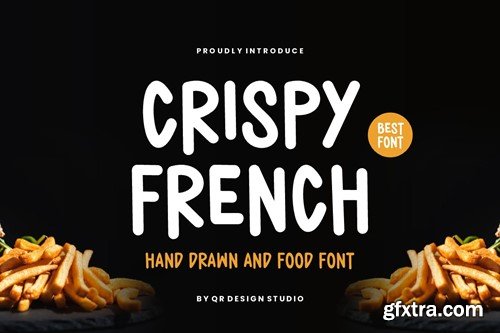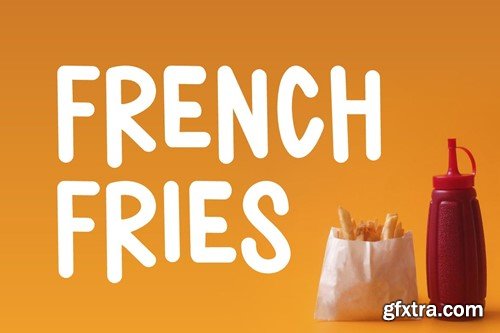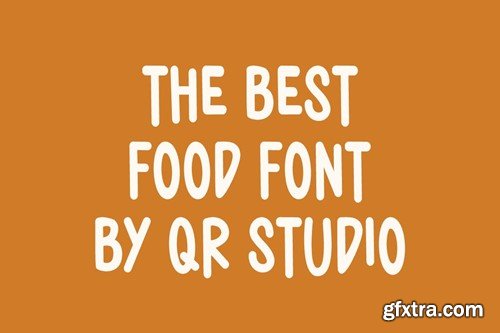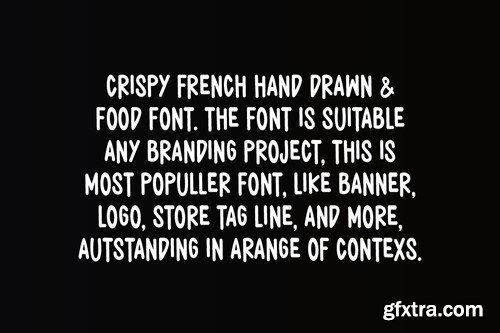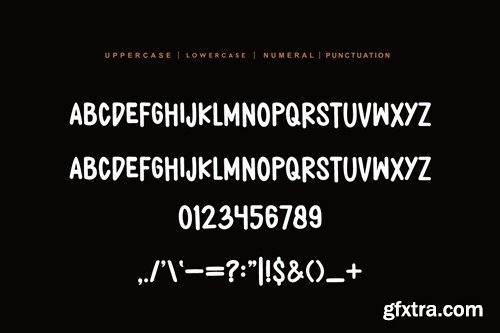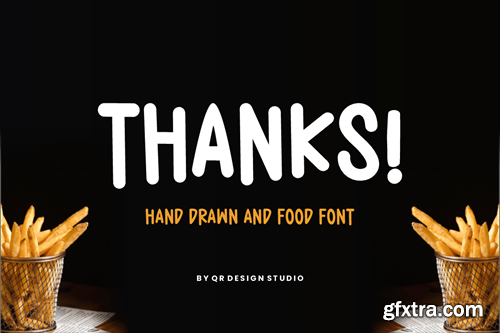
酥脆法式 - 手绘 & 食物字体 GN98582
Crispy French - Hand Drawn & Food Font GN98582
Crispy French - Hand Drawn & Food Font
Crispy French Font is a hand drrawn and authentic display font. The font is suitable for any branding project like food, poster, logo, kids, and many more. Outstanding in a wide range of contexts.